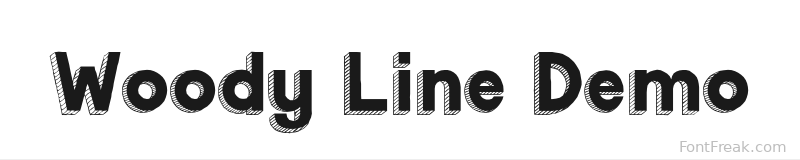
Woody Line Demo
About Woody Line Demo
The Woody Line Demo font by Noah Type is a captivating display typeface that beautifully merges playful aesthetics with a touch of elegance. This font falls into the decorative category, characterized by its unique line work and rounded edges. The stroke weight is consistent, offering a harmonious balance between boldness and approachability, while the subtle contrast adds depth to the characters. The spacing is generous, ensuring readability and making it an excellent choice for various design applications.
The visual characteristics of Woody Line Demo are striking, featuring a hand-drawn quality that evokes a sense of warmth and creativity. Its distinctive lined texture gives it a crafted feel, ideal for projects that aim to convey a friendly and inviting tone. This font excels in a variety of use cases, making it perfect for wedding invitations, where it can add a whimsical touch to the festivities. It is also well-suited for movie posters, providing an eye-catching element that draws viewers in. Restaurant menus can benefit from its playful nature, creating an engaging atmosphere for diners. Additionally, it serves well in branding materials, like logos and promotional flyers, where a unique identity is crucial.
What sets Woody Line Demo apart is its ability to blend artistic flair with functional design, making it not only visually appealing but also practical for a wide range of applications. Whether you're crafting a fun event invitation or a striking poster, this font is sure to make a memorable impact.